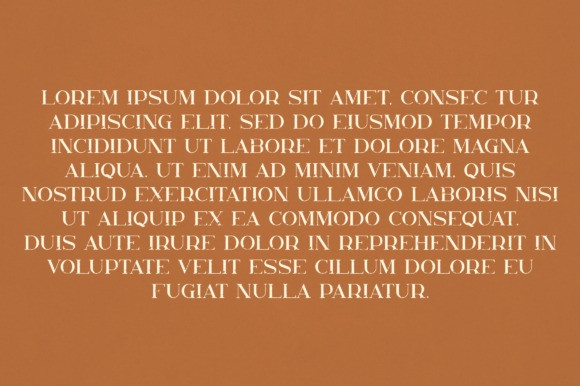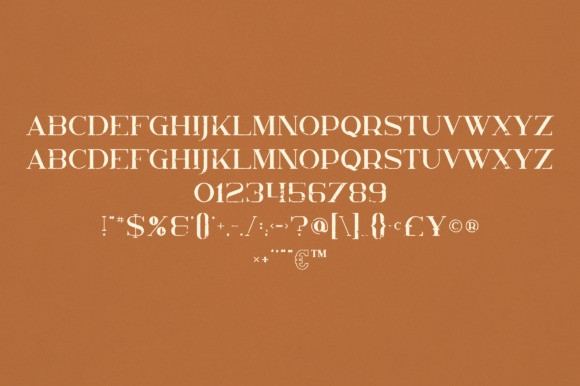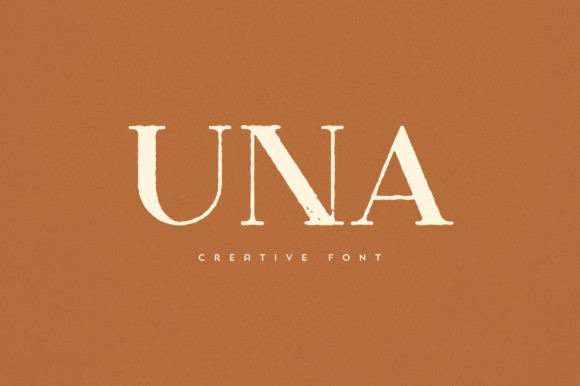
Una Font
Una Font is an elegant and versatile serif font that will make your typography truly unique! It will enchant every logo, branding, headline, or plain text!